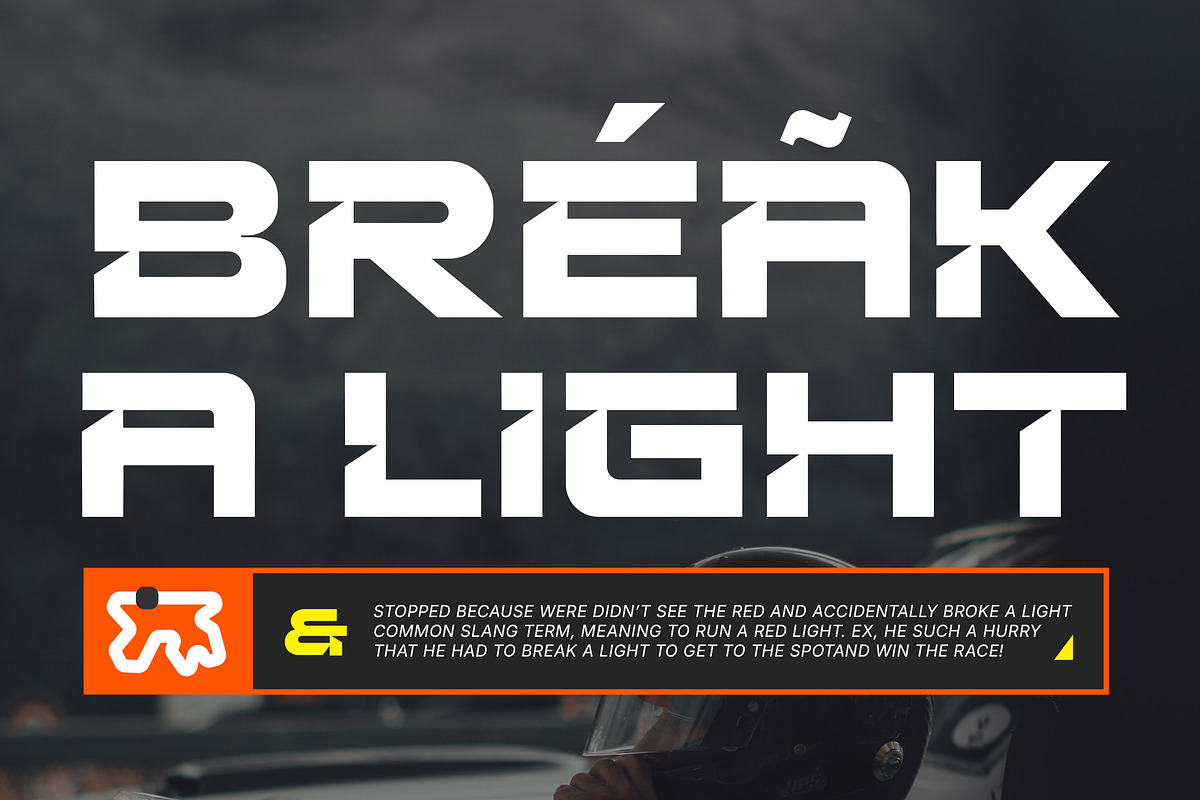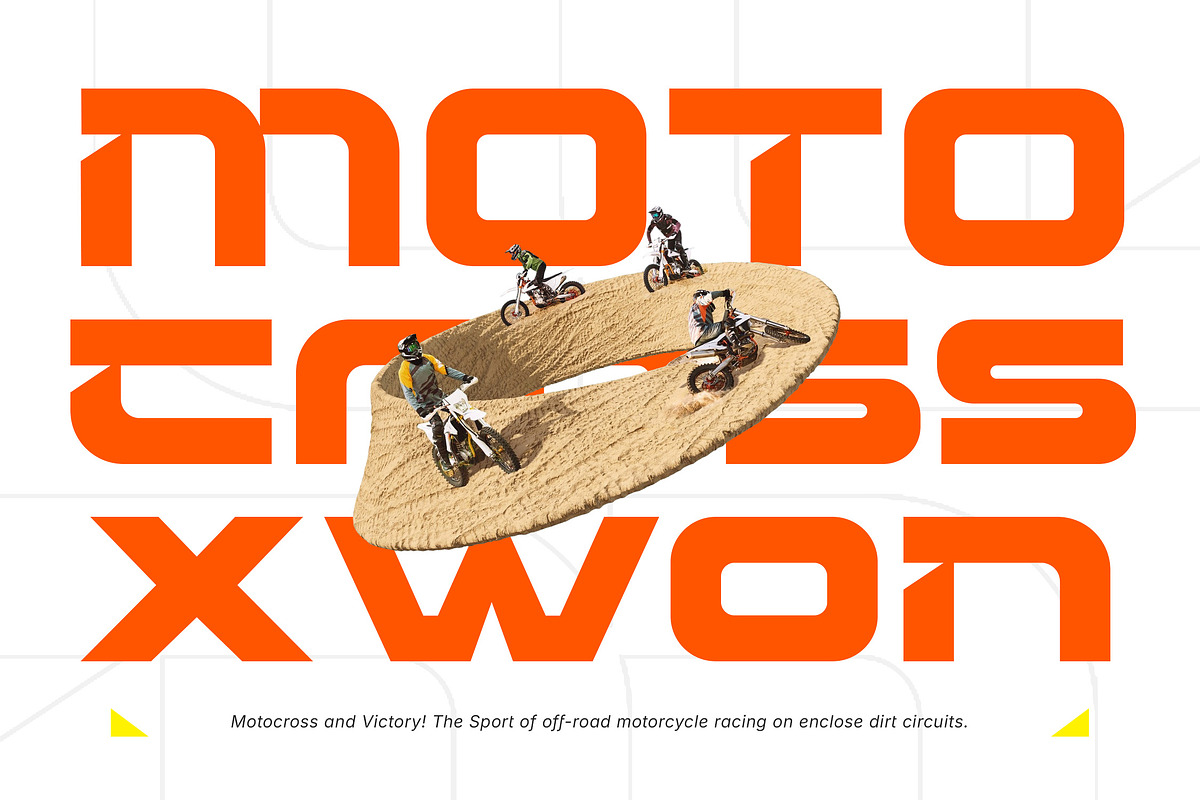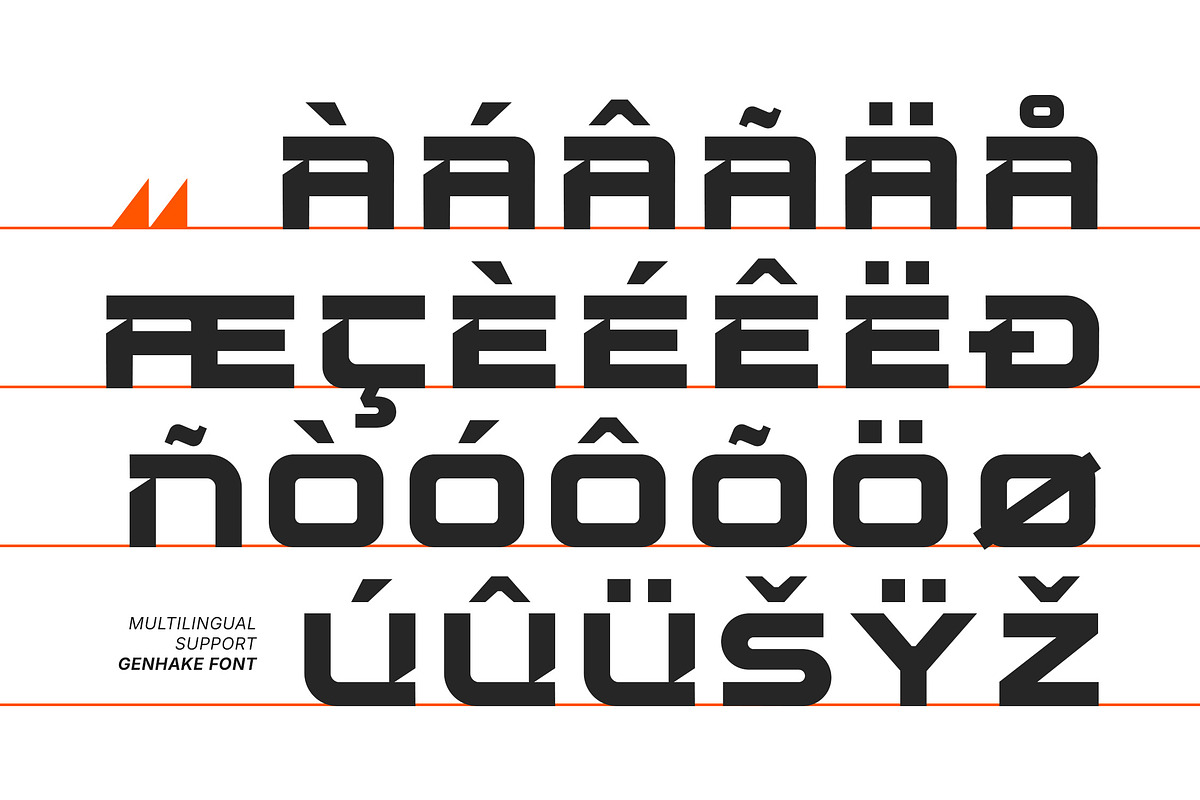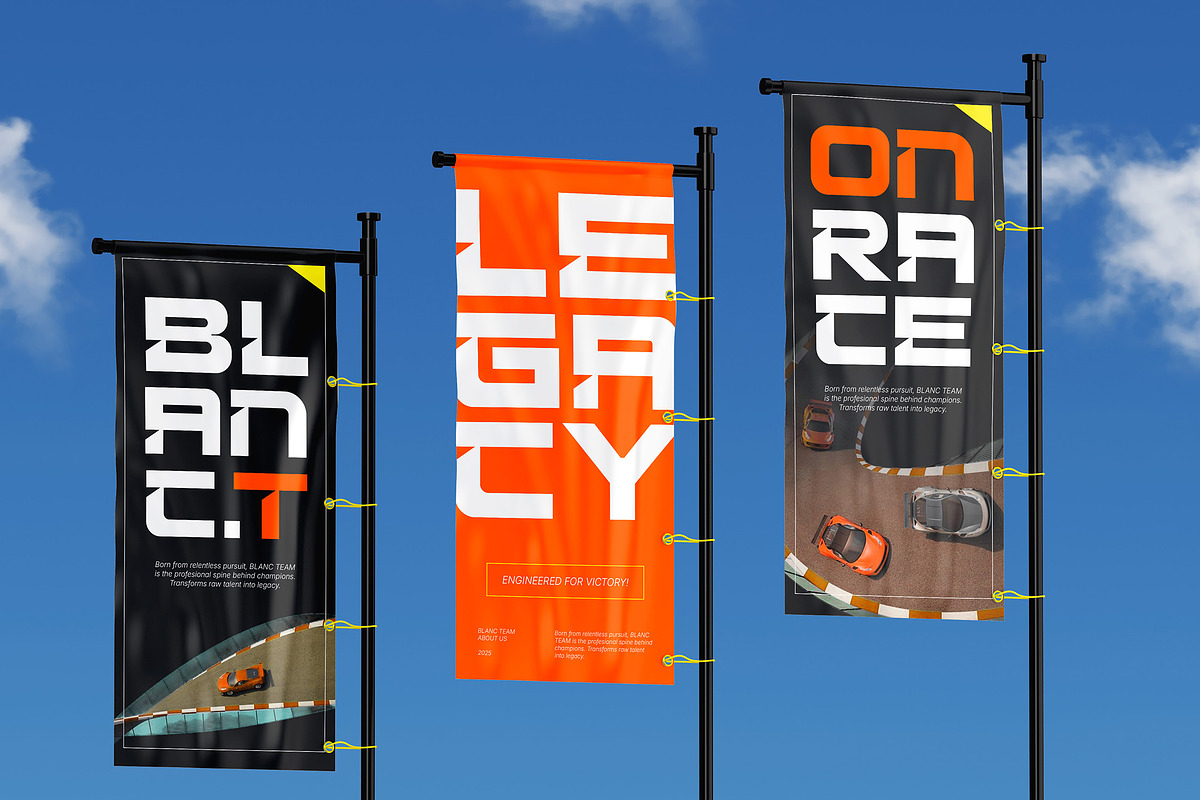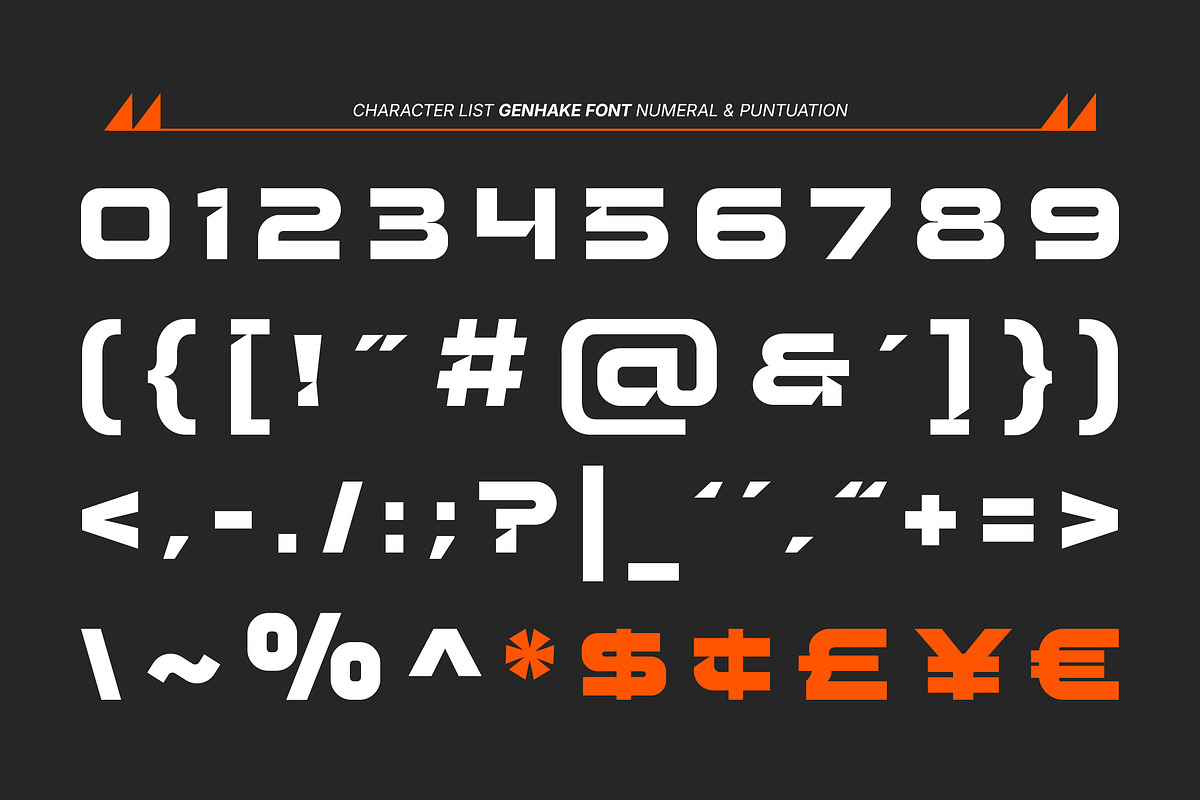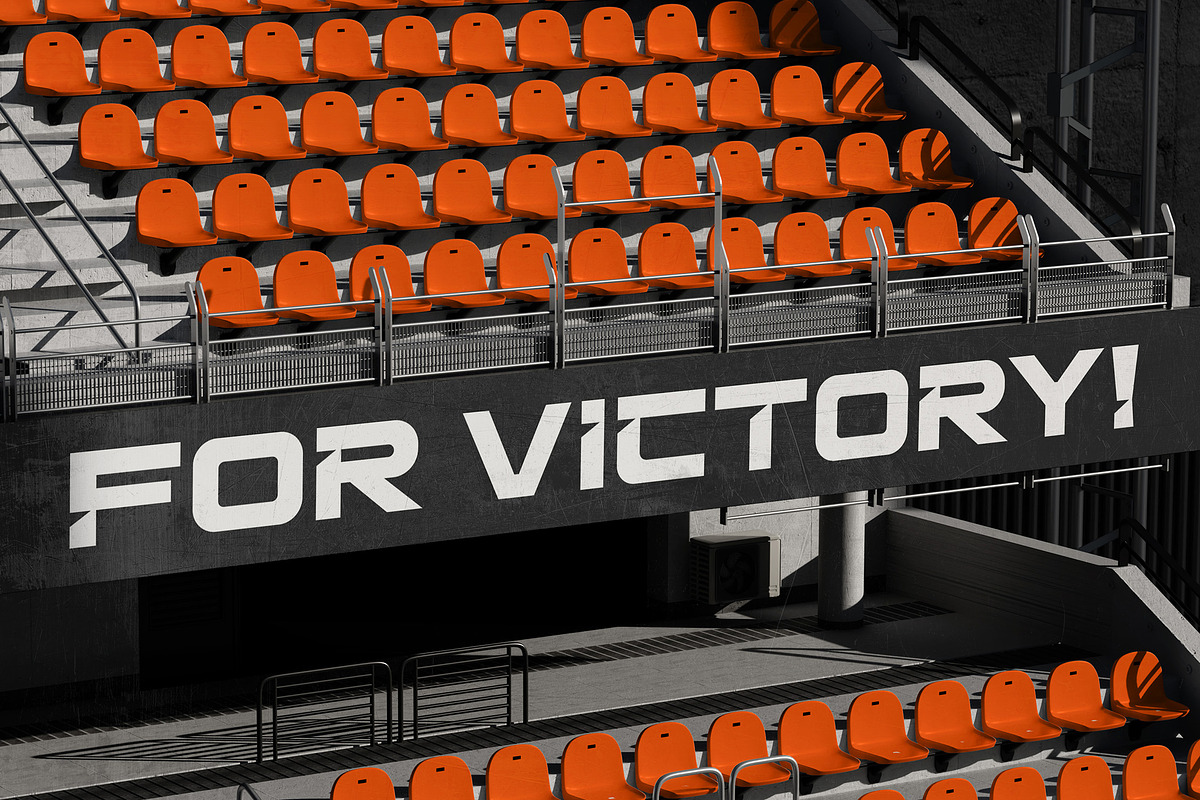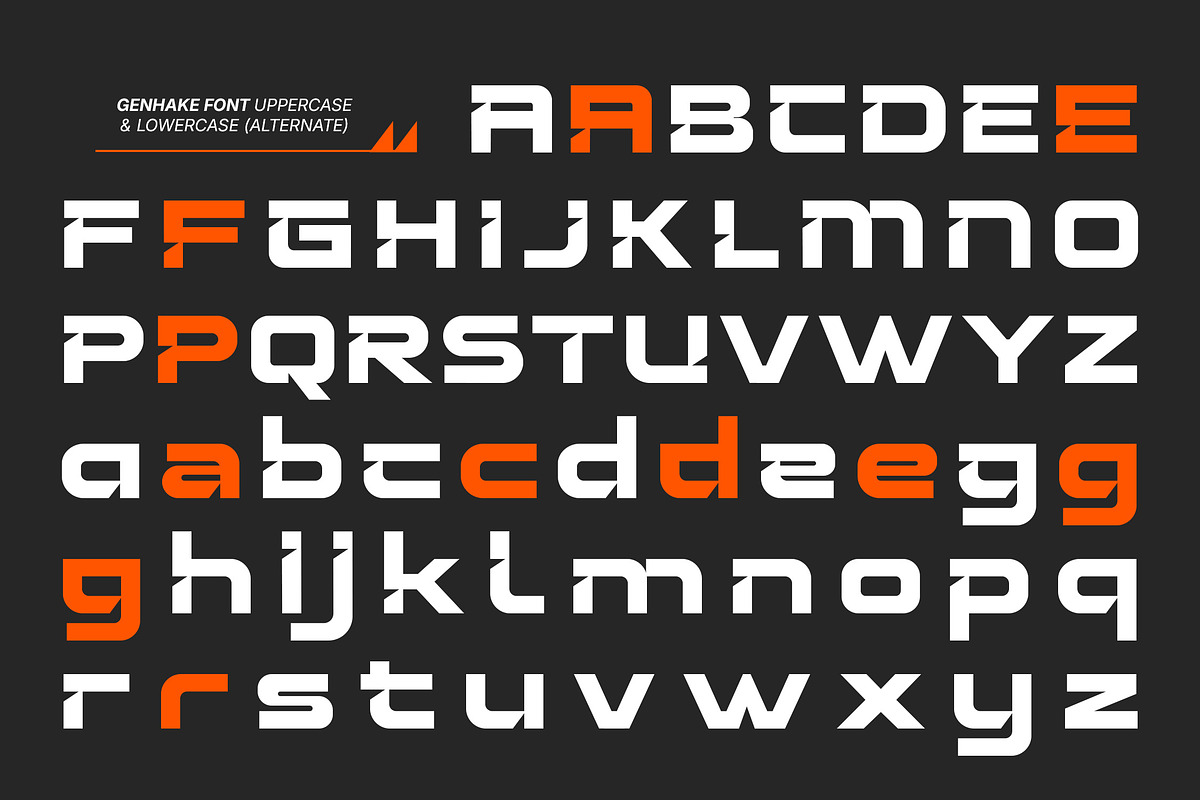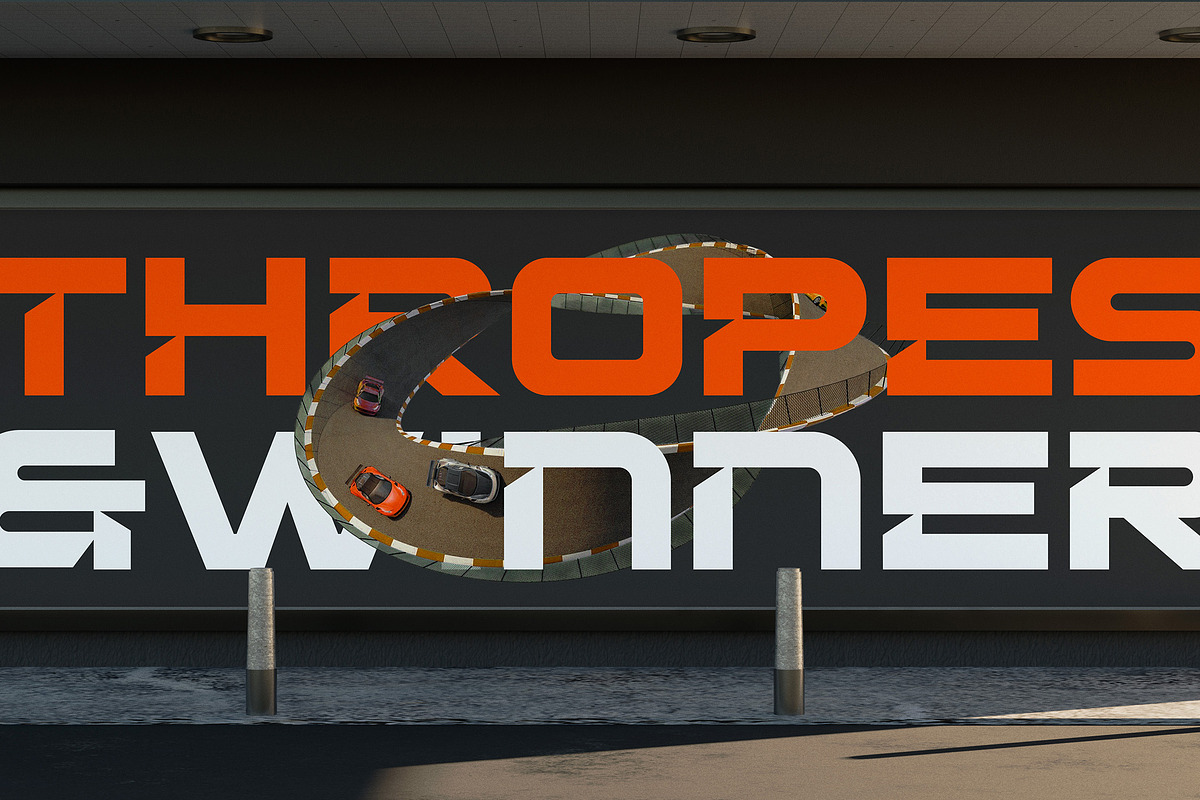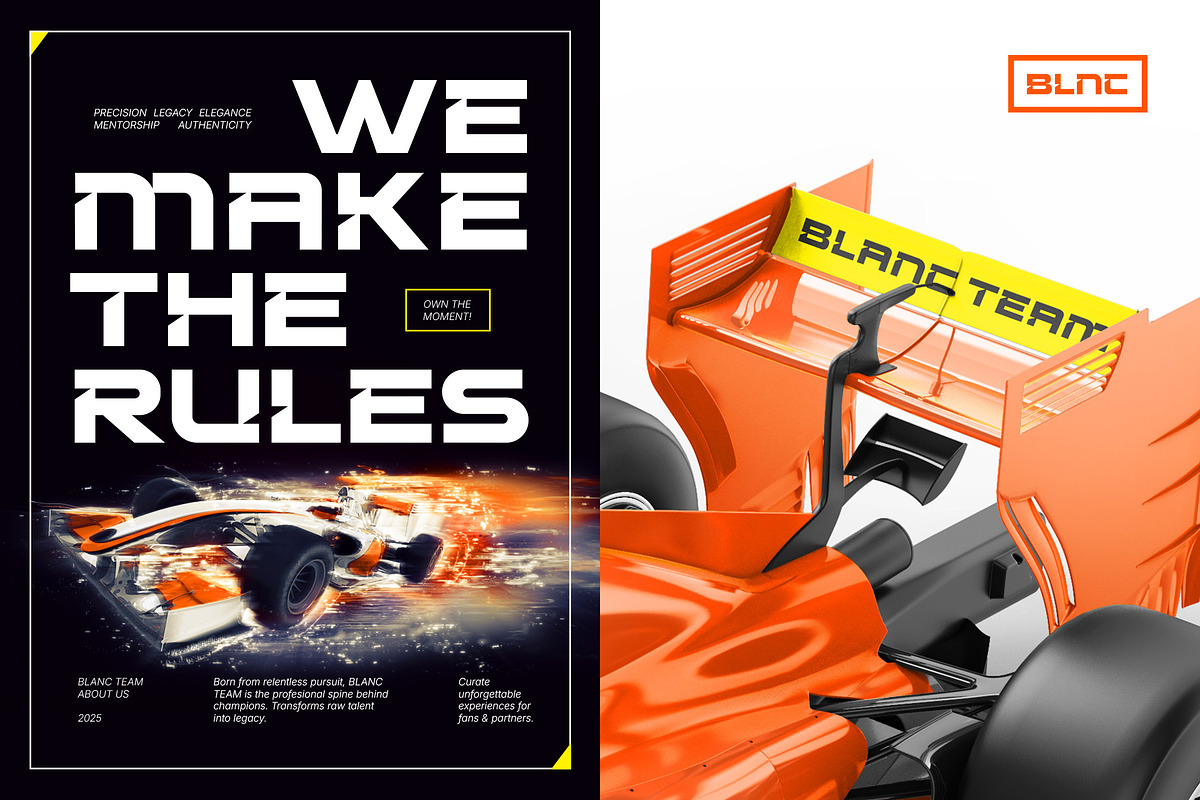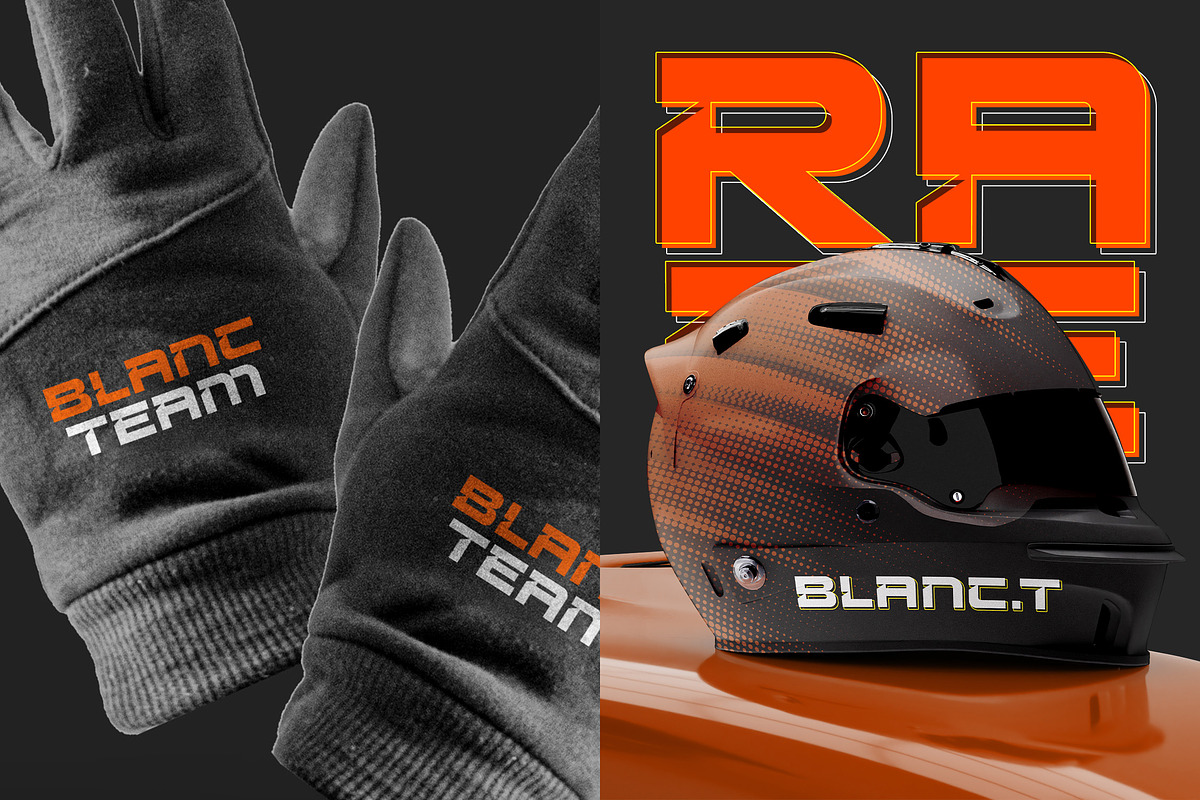
Genhake - Modern Futuristic Scifi
Genhake - Modern Futuristic Scifi Game Font - Sport Tech Logo Racing Expanded Font
Genhake is a Modern Futuristic Scifi Game Font that embodies speed, technology, and racing intensity. This display typeface is exceptionally Bold and Expanded, delivering powerful, with slightly Oblique stance give it a dynamic design, it's perfect for sport and automotive branding, poster design, urban tech projects, logo for a Scifi film, dynamic game title, or cutting-edge graphics for the Web, headlines, and any projects that require a touch of modern and futuristic. Genhake's aggressive and Modern character ensures your message is fast, powerful, and visually unforgettable.